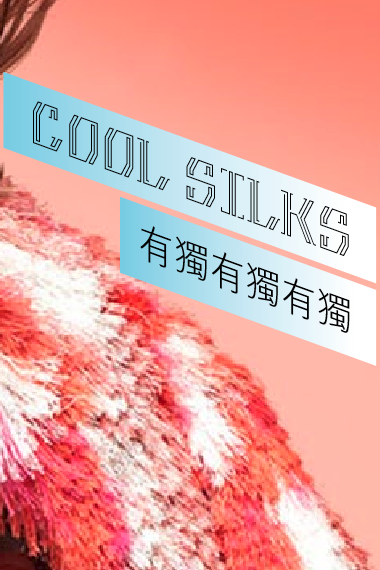
This is lovely! The middle stem on the W seems forced though.
Very nice!
Coolio.
wonderful idea and good decisions!
sweetness!
badass
That was bloody clever.
Lovely indeed. Wonderful idea and execution, minimum.
Stylish
Really Great!
PS: Down with middle stem giving W!
Really something special ...
Again, this reminds me of the great Thalamic's work :-) He was one of my favourite fontstructors.
was?wtf?
"I am in radio contact." :)
@thalamic I've been wondering why I hadn't seen you around lately.
Great work! the dot on i and j are very ingenious
thick and thin stems of V W and Y are messed up.
I should have made these updates on a clone. Oh well.
BTW, the name Illiij was supposed to be an allusion to the design itself with the many vertical lines. Randomly selected letters that were just verts in the first combination of letters that sounded pronounceable. Silly, I know. Will I ever grow up?
Last year, I was contacted by a designer in Hong Kong to use fs Illij in a magazine. Two days ago, I got a copy of the magazine in the mail. This is the first time, to my knowledge, one of my fonts is used for something real. It's quite exciting.
Cool!
Congratulations! Your work ought to featured in many real applications.
ought to be....
Fantastic!! It's always great when one of our creations escapes into the real world - congratulations.
That's really awesome, minimum! Exactly what p2pnut said... Congratulations!
Congrats, Ata!
Super cool silky font, and great demo. 10/10